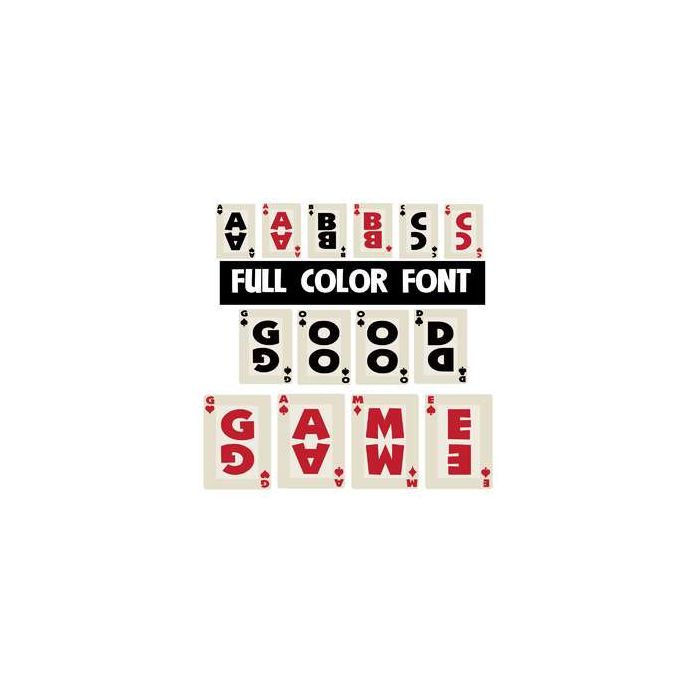
This full color font looks like playing cards. The uppercase is made up of black playing cards. The lowercase is red playing cards. This font works best for titles, displays, posters and more. Please note color fonts will show as black in non compatible programs. This font type is compatible with Silhouette Studio.